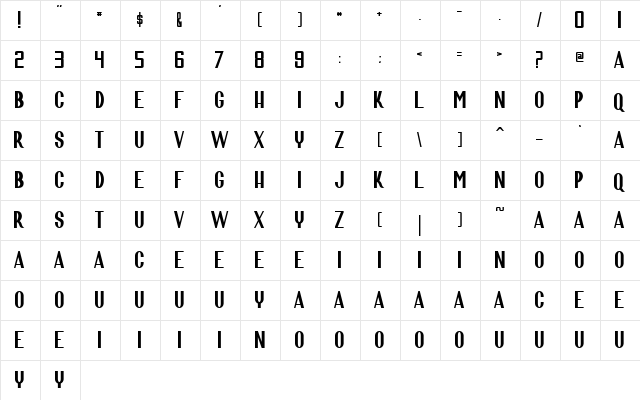
Scara Conquers the Universe Regular
| Foundry | Scaramanga Productions |
| Designer | Scaramanga Productions |
Design Context for Scara Conquers the Universe Typeface
Scara Conquers the Universe offers clean, dependable letterforms without strong stylistic allegiance, making it a practical choice for designers who need flexibility.